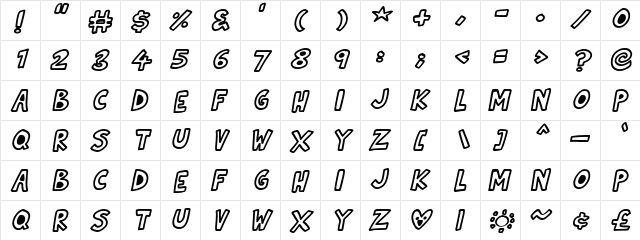
Natural Toons Italic
Design Context for Natural Toons Typeface
Natural Toons is a composed and adaptable typeface that performs quietly and consistently across a wide range of design contexts. Its italic angle brings a sense of urgency and motion to the letterforms.
Pro Tip: Use Natural Toons for emphasis, pull quotes, and subheadings where its slanted energy can add rhythm to the layout.